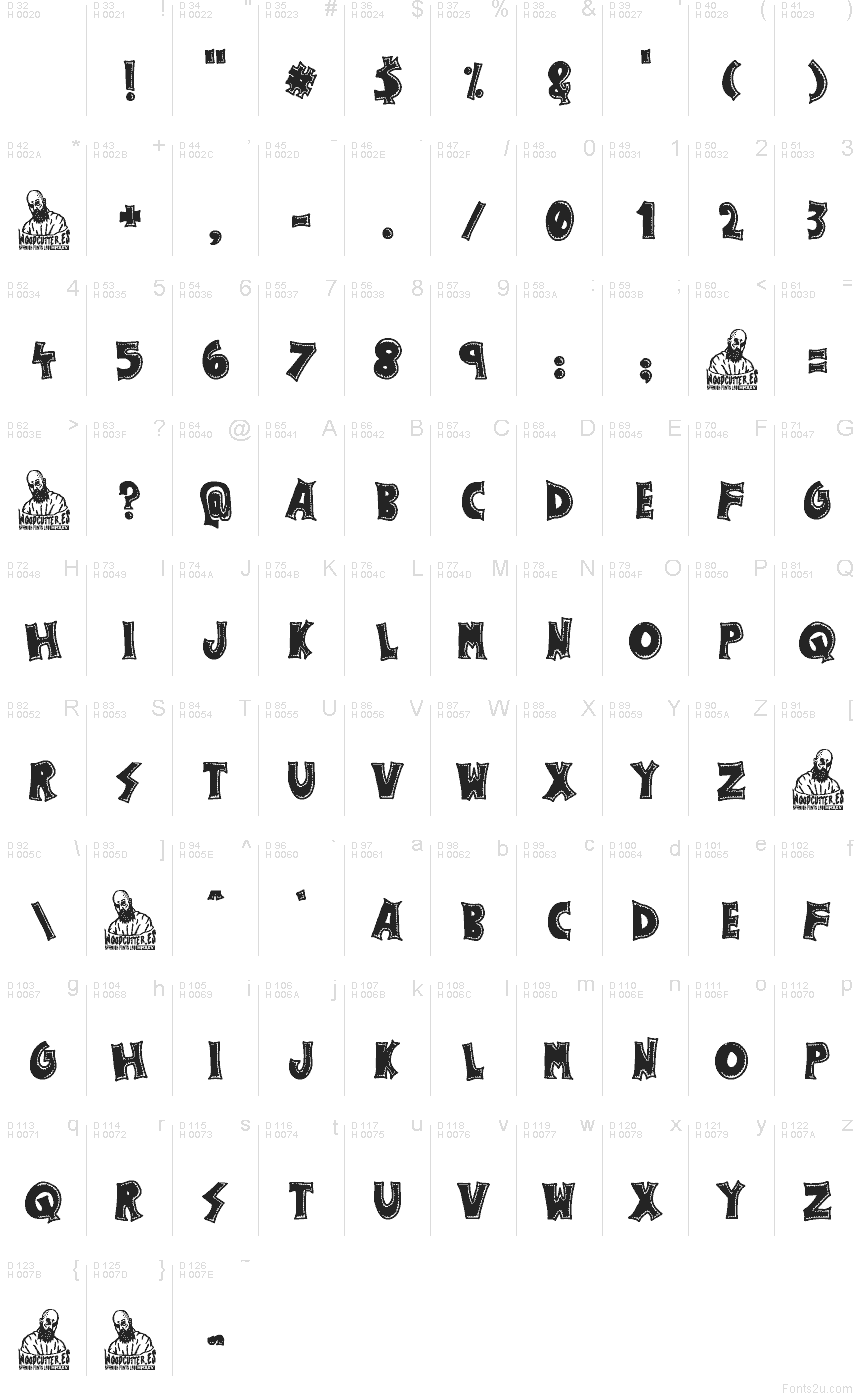
Mexican Brotherhood
Mexican Brotherhood by Woodcutter Manero is a free Mexican folkloric display font with the feel of hand-cut festival lettering. The letters are chunky and irregular, with carved-looking notches, sharp little bites along the inner edges, and a rough folk-art rhythm that makes the whole font feel lively rather than polished.
It fits posters for cantinas and food trucks, mezcal or hot sauce labels, fiesta flyers, album art, and bold cover lines where a free font with a strong regional accent helps set the tone fast. Because the shapes are broad and animated, it also works well for short title cards, menu headings, and monograms that need that cut-paper, wood-sign spirit.